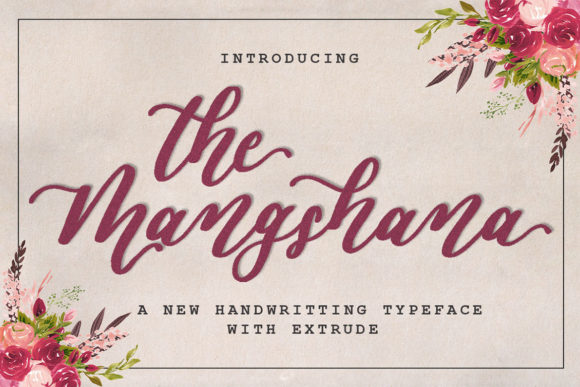
Indulge in the captivating allure of The Mangshana Font, a script typeface that exudes elegance and modern flair. Its timeless calligraphy roots lend an air of sophistication, while its perfectly balanced strokes create a harmonious flow.
Crafted with meticulous attention to detail, this font is neither too thin nor too thick, ensuring visual impact and legibility. Its varied letterforms add a touch of playfulness, making it ideal for both formal and creative projects.
Whether you're designing invitations, crafting social media posts, or creating eye-catching headlines, The Mangshana Font will elevate your words with its timeless beauty and contemporary appeal. Its versatility knows no bounds, making it the perfect choice for a wide range of projects.